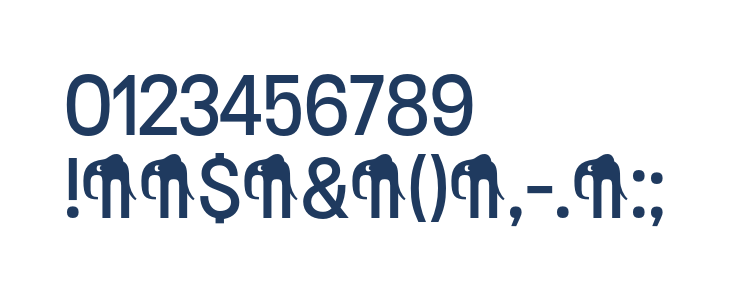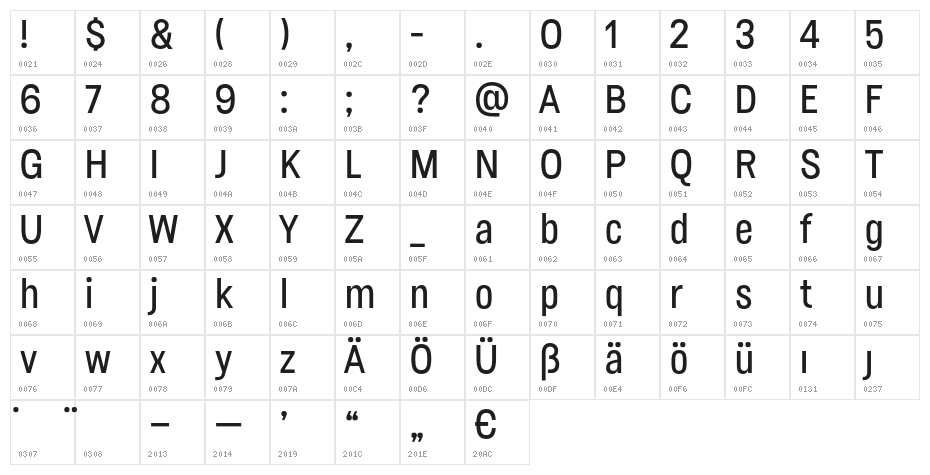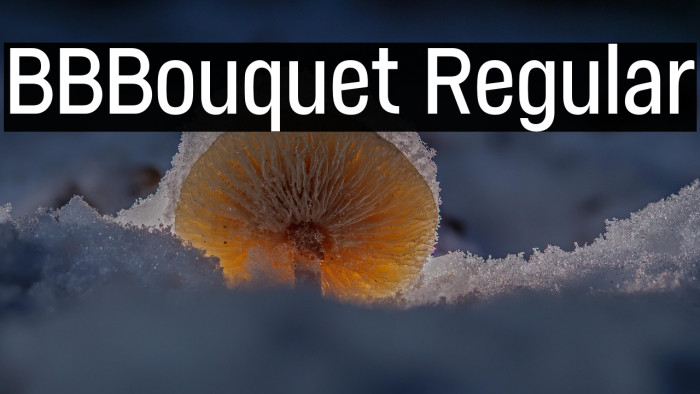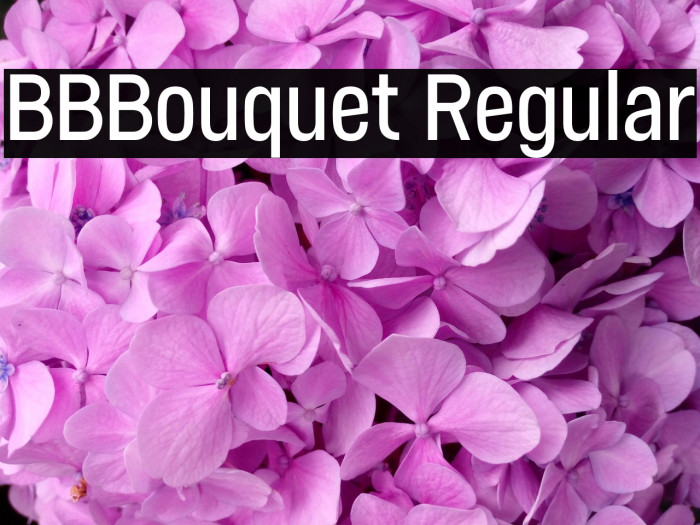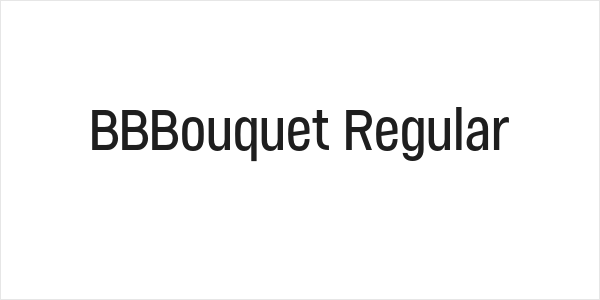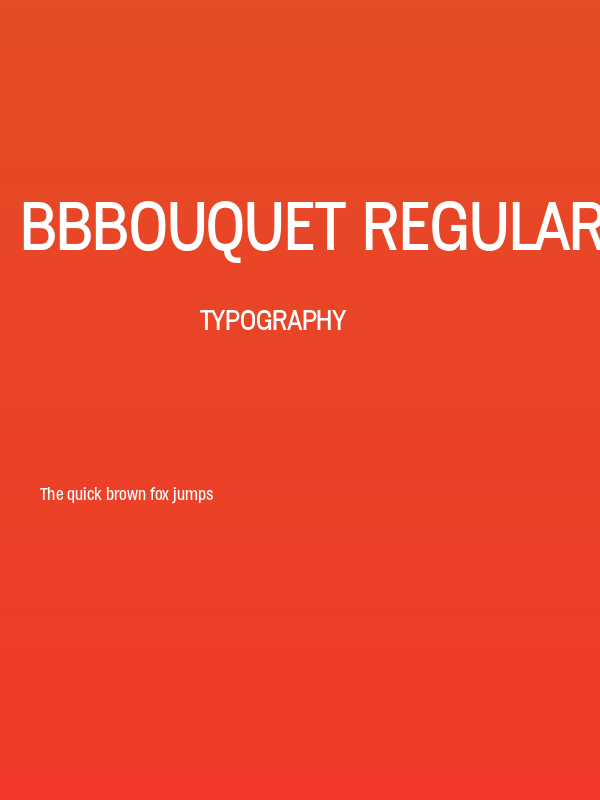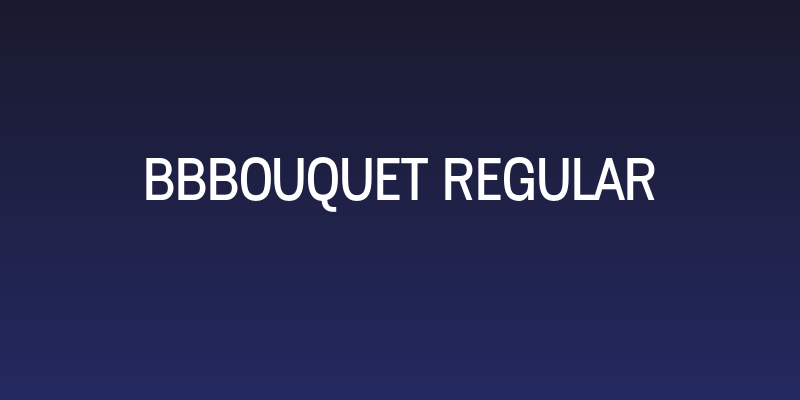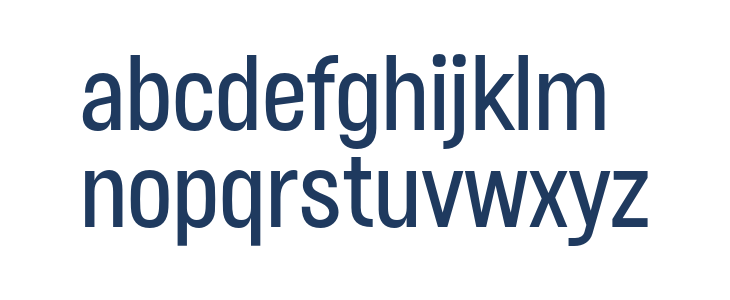
BBBouquet Regular Font
BBBouquet Regular Description
This font exhibits a clean and modern sans-serif style, characterized by its uniform stroke width and geometric shapes. The uppercase letters are bold and assertive, while the lowercase letters maintain a consistent height, enhancing readability. The numerals are clear and straightforward, matching the overall aesthetic. Special characters are well-defined, ensuring versatility in various applications. The design is minimalistic, making it suitable for both digital and print media. Its simplicity and clarity make it an excellent choice for professional and contemporary projects.